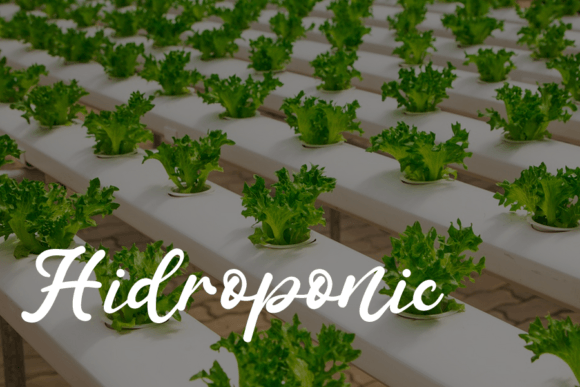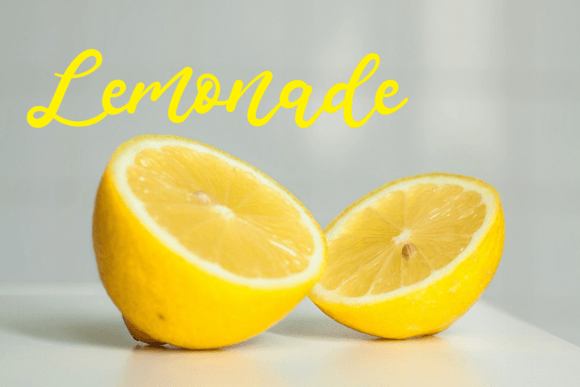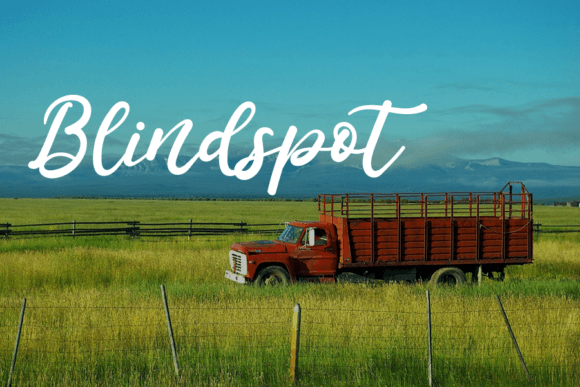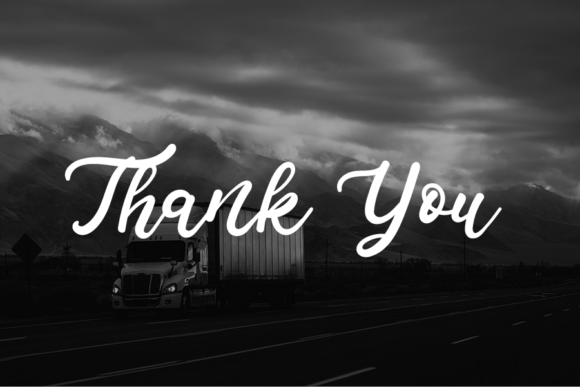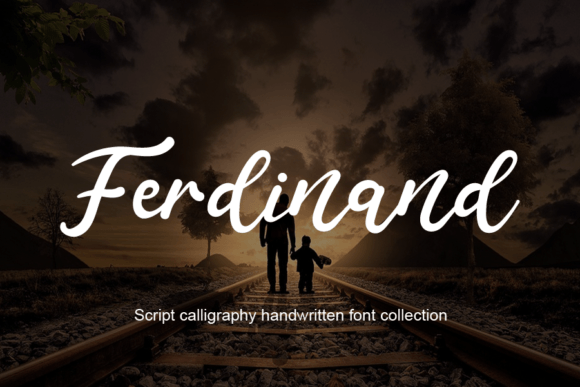
Ferdinand Font: Elevate Your Designs with a Simple yet Elegant Handwritten Style
In the world of typography, a good font can make all the difference in the success of a design project. For designers and crafters looking for a versatile and simple handwritten font, Ferdinand Font is an excellent choice. This beautiful font is perfect for a wide range of applications, from creating greeting cards to crafting compelling headlines. In this article, we’ll explore the features and benefits of Ferdinand Font, and how it can add a simple and natural feel to your next project.
The Characteristics of Ferdinand Font
Ferdinand Font is a simple handwritten font that exudes elegance and sophistication. Its clean lines, rounded edges, and flowing strokes create a natural and effortless look that’s perfect for designs that require a personal touch. The font’s simplicity makes it highly legible, ensuring that your message is conveyed clearly and effectively.
One of the standout features of Ferdinand Font is its versatility. This font can be used in a wide range of design projects, including:
• Greeting cards: Add a personal touch to your cards with Ferdinand Font’s elegant and simple style.
• Headlines: Create compelling headlines that grab attention with Ferdinand Font’s unique and stylish look.
• Signage: Use Ferdinand Font for signage projects, such as menus, posters, and flyers, to create a friendly and approachable atmosphere.
• Digital designs: Ferdinand Font is perfect for digital designs, including social media graphics, blog posts, and website headers.
Benefits of Using Ferdinand Font
So, why choose Ferdinand Font for your next design project? Here are just a few benefits of using this beautiful font:
• Easy to read: Ferdinand Font’s simple and clean design makes it easy to read, even at small sizes.
• Highly versatile: Use Ferdinand Font in a wide range of design projects, from print to digital.
• Unique style: Ferdinand Font’s elegant and natural look sets it apart from other fonts, adding a personal touch to your designs.
• Time-saving: With Ferdinand Font, you can create professional-looking designs quickly and easily, saving you time and effort.
Tips for Using Ferdinand Font
To get the most out of Ferdinand Font, here are a few tips to keep in mind:
• Pair with other fonts: Ferdinand Font pairs well with other fonts, such as sans-serif fonts, to create a unique and stylish look.
• Experiment with colors: Try Ferdinand Font with different colors to add depth and interest to your designs.
• Use for emphasis: Use Ferdinand Font to add emphasis to certain words or phrases in your design, creating a visual hierarchy.
In conclusion, Ferdinand Font is a beautiful and versatile handwritten font that’s perfect for designers and crafters looking to add a simple and natural feel to their designs. With its clean lines, elegant style, and high legibility, Ferdinand Font is guaranteed to elevate your designs and make them stand out. Whether you’re creating greeting cards, headlines, or digital designs, Ferdinand Font is an excellent choice. So why not give it a try and see the difference it can make in your next project?
• Simple handwritten font
• Versatile and highly legible
• Perfect for greeting cards, headlines, and digital designs
• Elegant and natural look
• Easy to read and use